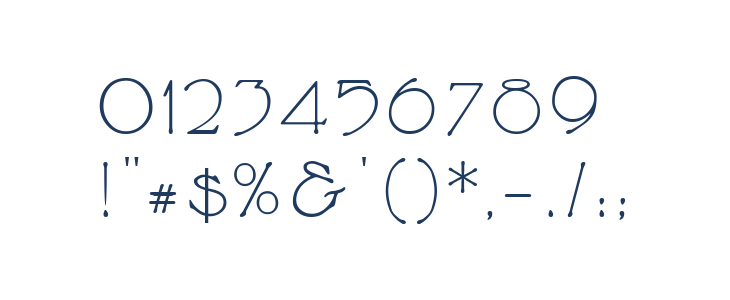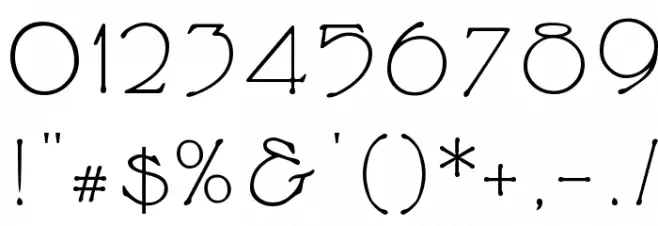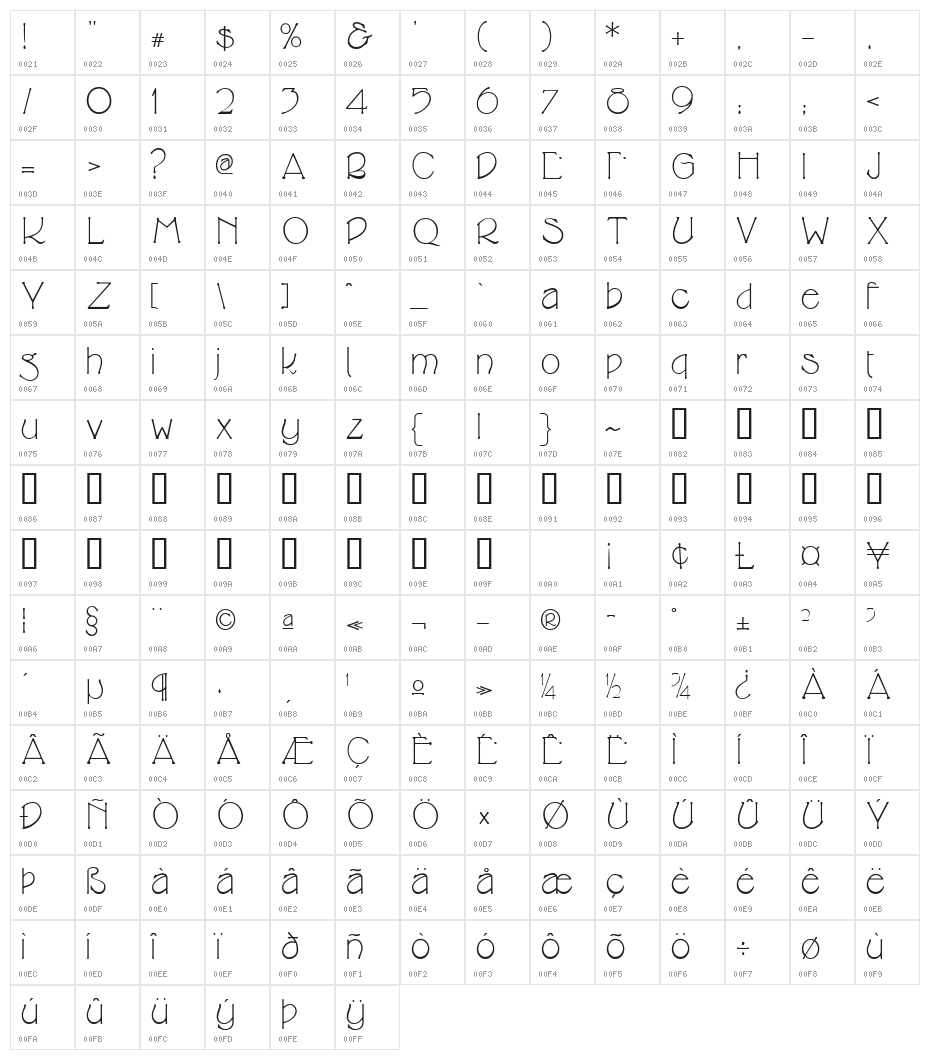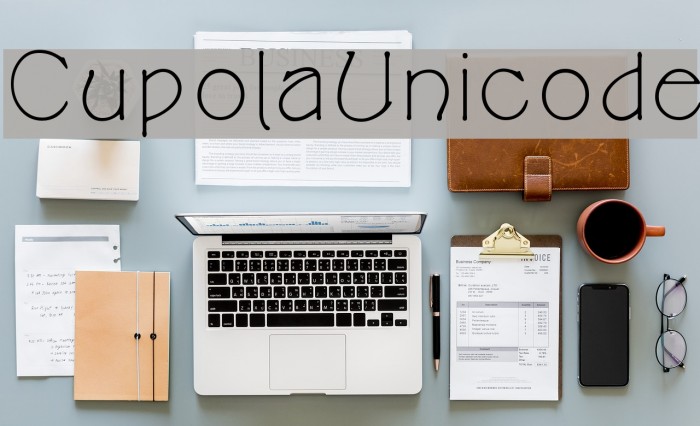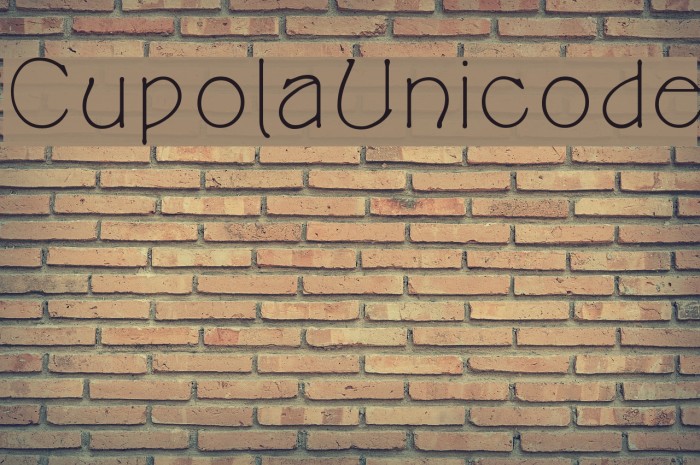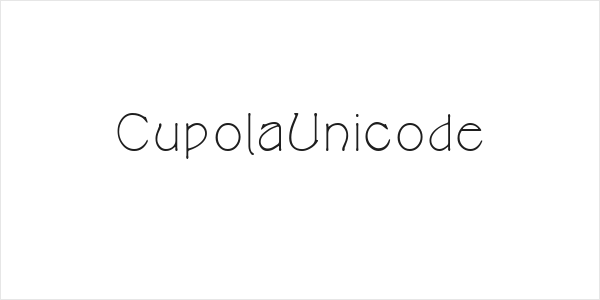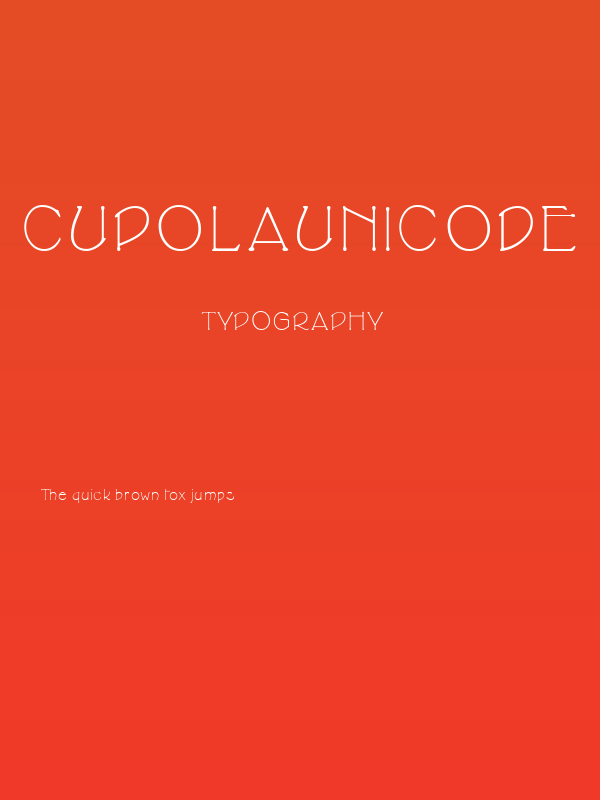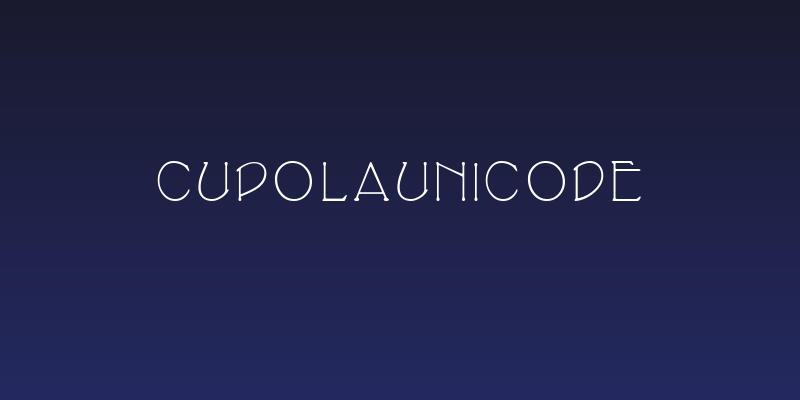
CupolaUnicode Font
CupolaUnicode Description
This font features a whimsical and playful design with a handwritten style. The characters are slightly irregular, adding a charming and informal touch. The uppercase letters are tall and narrow, while the lowercase letters have a more rounded and flowing appearance. The numbers and special characters maintain the same playful aesthetic, making the font versatile for creative projects. The strokes are consistent in weight, providing a balanced look across all characters.
Overall StylePlayful
Use CaseHeadlines, Logos, Creative projects
Proposed ProjectsIdeal for children's books, greeting cards, playful branding, and creative posters.